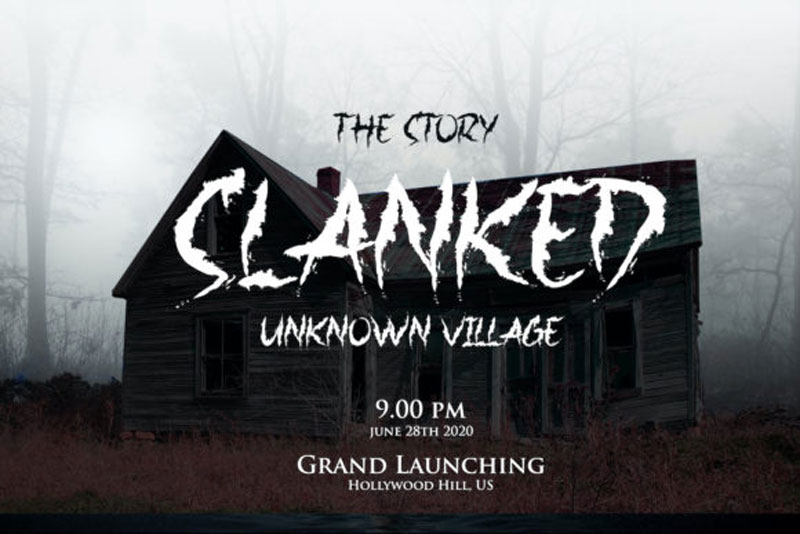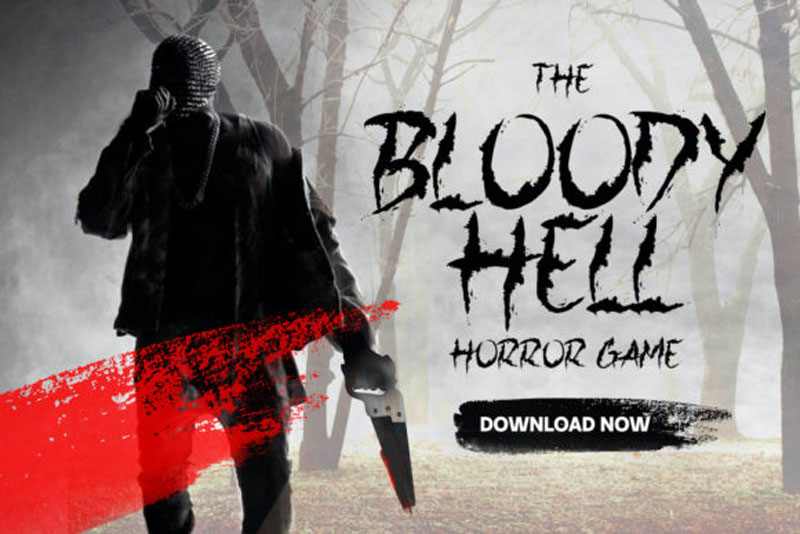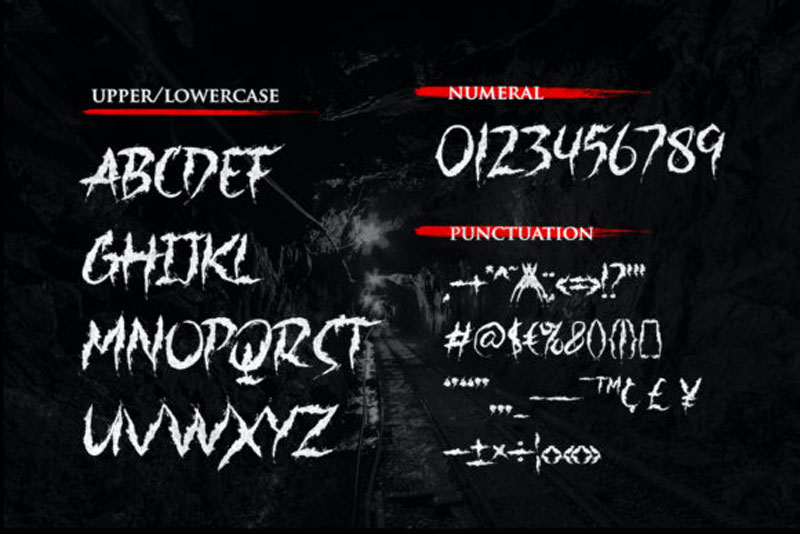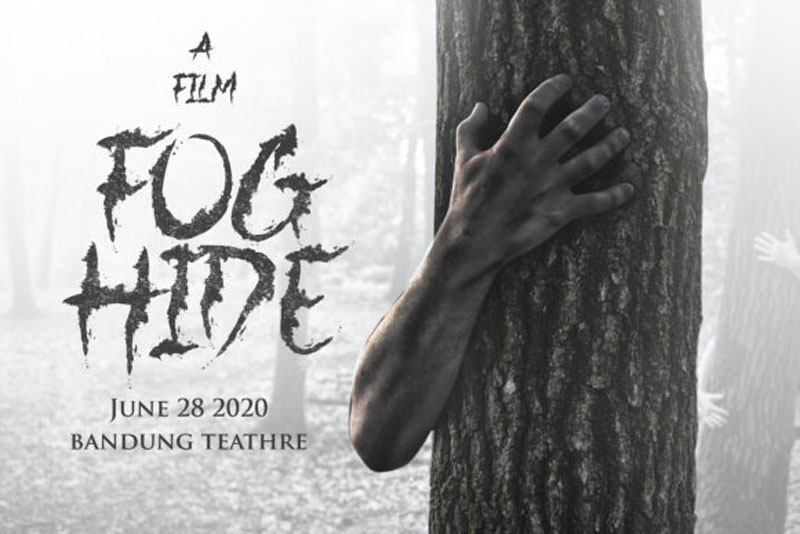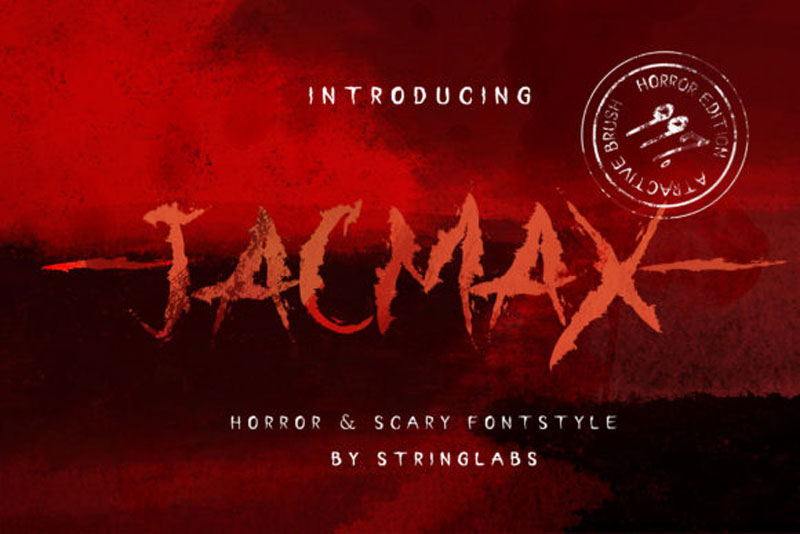
Jacmax Font
Introducing Jacmax Font
The Jacmax is a Modern Script Font with Calligraphy Style. The Jacmax font was created with a Jacmax handwriting brush pen. This font is perfect for a fashion brand, wedding invitation, business card, logo brand, signature, and for your any calligraphy projects. Also checkout Theodorlane Font.
FEATURES
• Ligatures
• Uppercase and Lowercase letters
• Numbering and Punctuations
• Multilingual Support